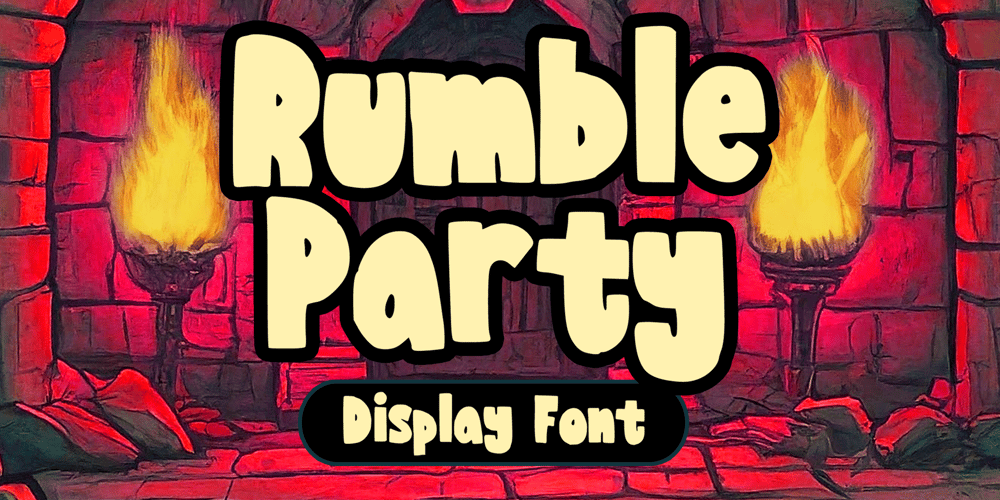
Rumble Party Font Family was designed by Gabriel Valentinus and published by Mvmet. Rumble Party contains 1 styles and family package options. Rumble Party is a fun and playful bold game font. You can use it for anything ranging from t-shirts, kids’ book designs, game designs, and greeting cards to stickers and posters, or anything that needs a middle-ages vibe. Fall in love with its incredibly versatile style and use it to create lovely designs!